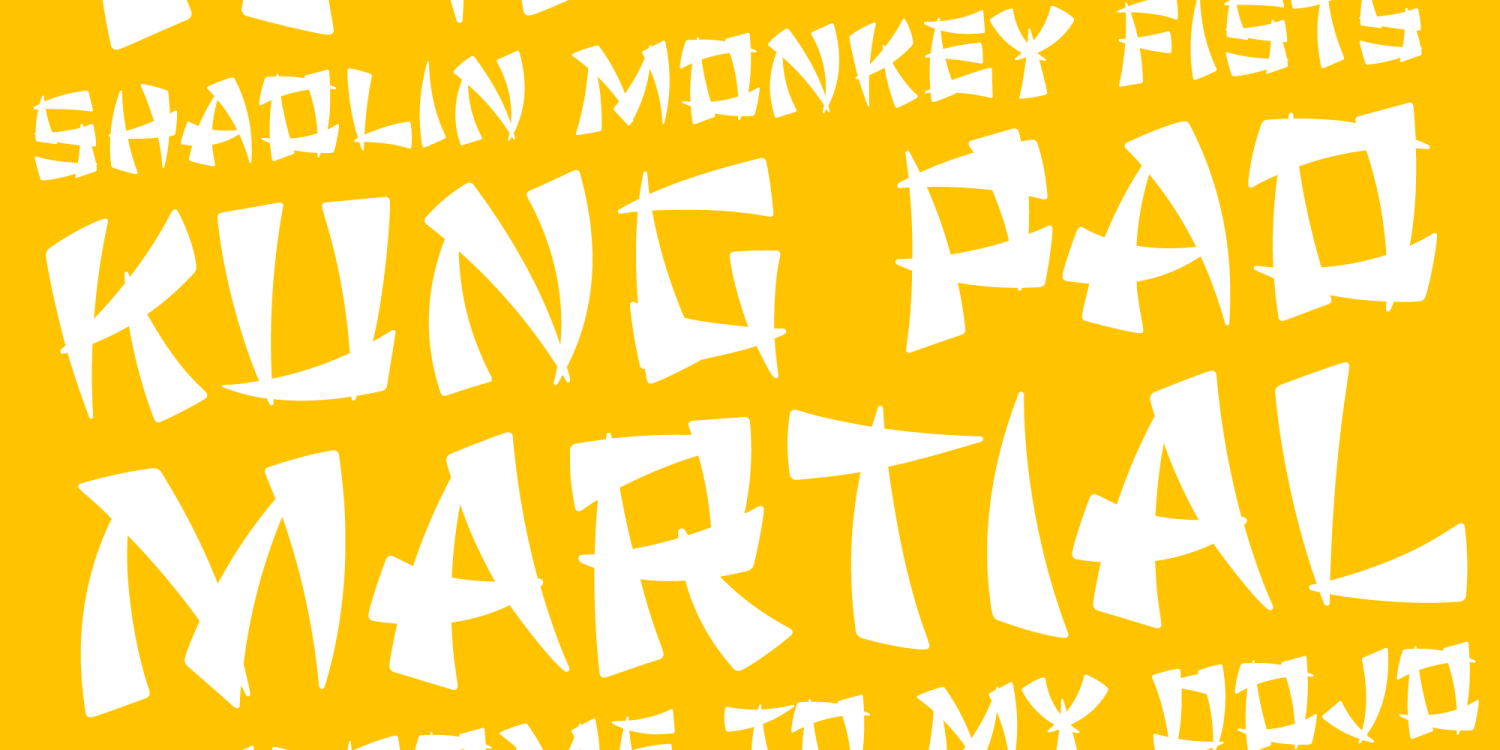
About Chop Chop PB
Inspired by an old matchbook which read: "Chop Suey: Finest Chinese and American Cooking". Chop Chop recreates that matchbook printed feel with soft rounded edges on what one would normally expect to be a sharp and pointy typeface. The typeface has two versions of each capital form, one in the capitals and one in the lowercase positions. The Contextual Alternates feature auto-magically swaps every other character with the alternative version allowing you to easily type you message, while creating a little diversity as well.
Chop Chop PB by Pink Broccoli